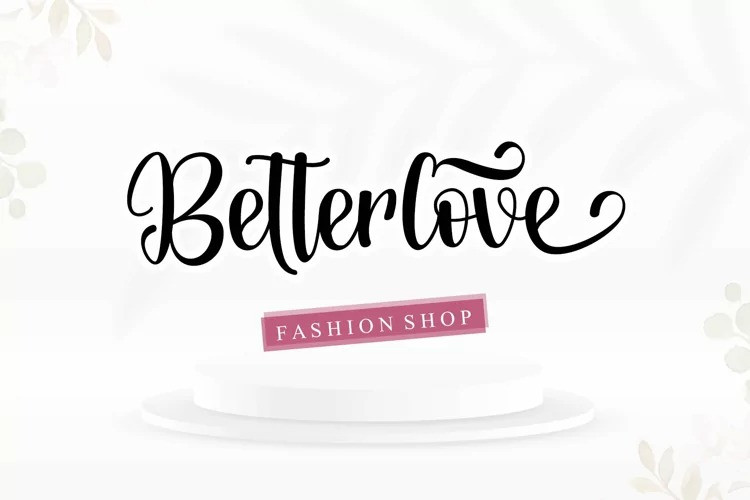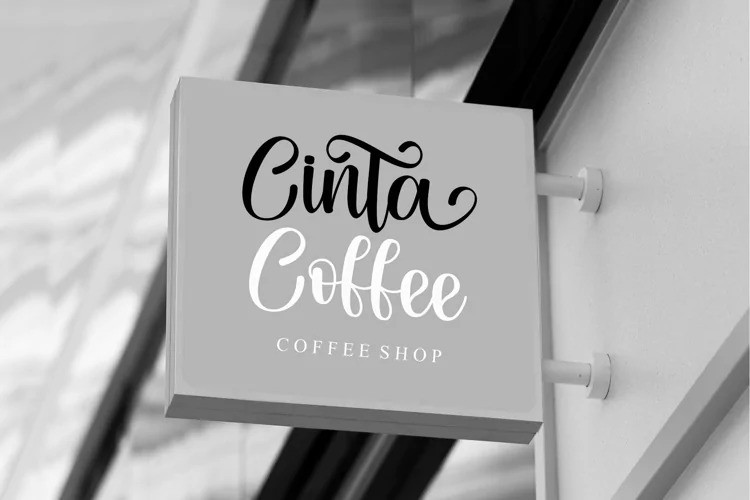
Jihan Font
Jihan Script Font is a romantic and graceful calligraphy typeface with characters that dance along the baseline. It can be used for various purposes such as logos, wedding invitations, headings, t-shirts, letterhead, signage, labels, news, posters, badges and so much more. Jihan is PUA encoded which means you can access all of the glyphs and swashes with ease!